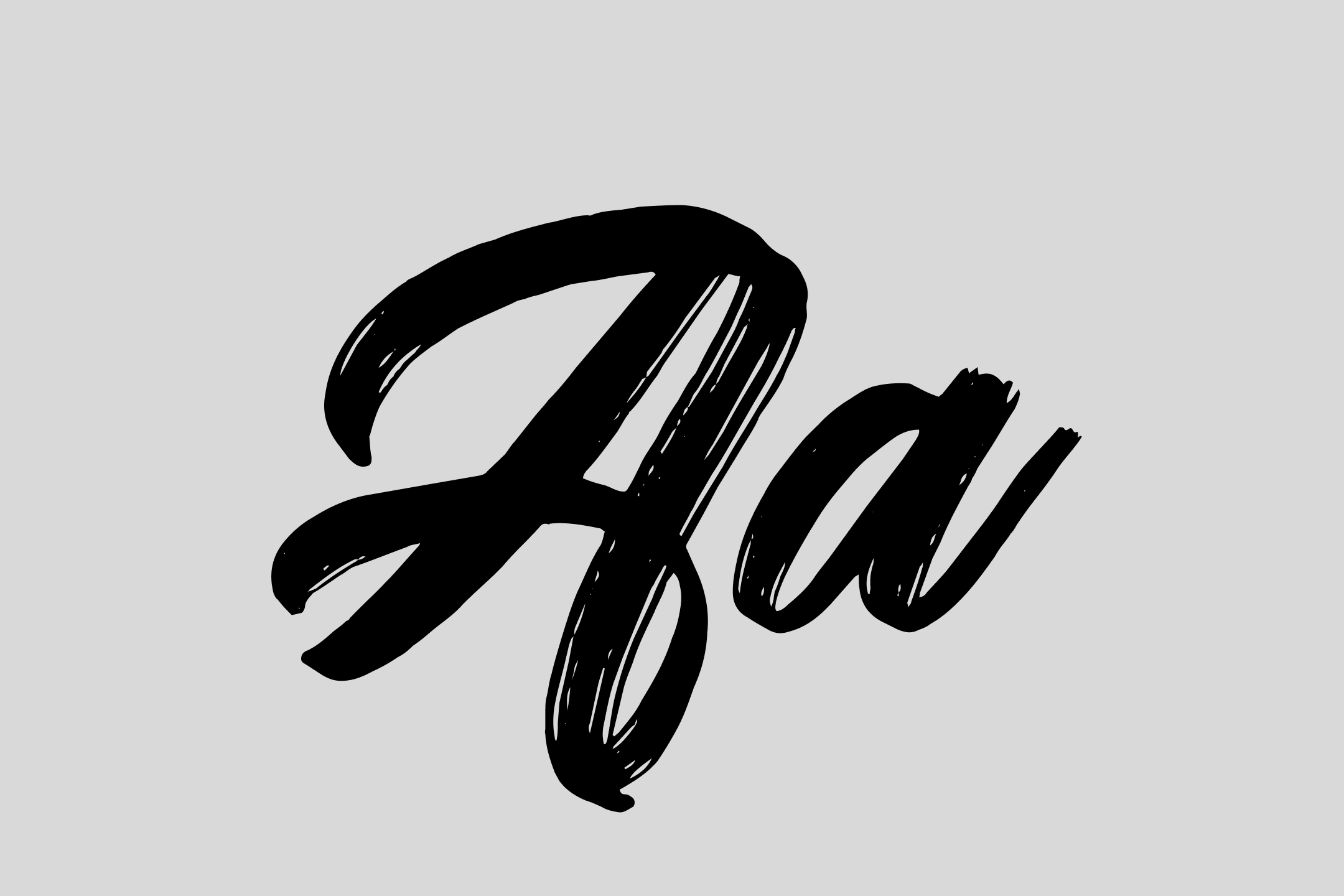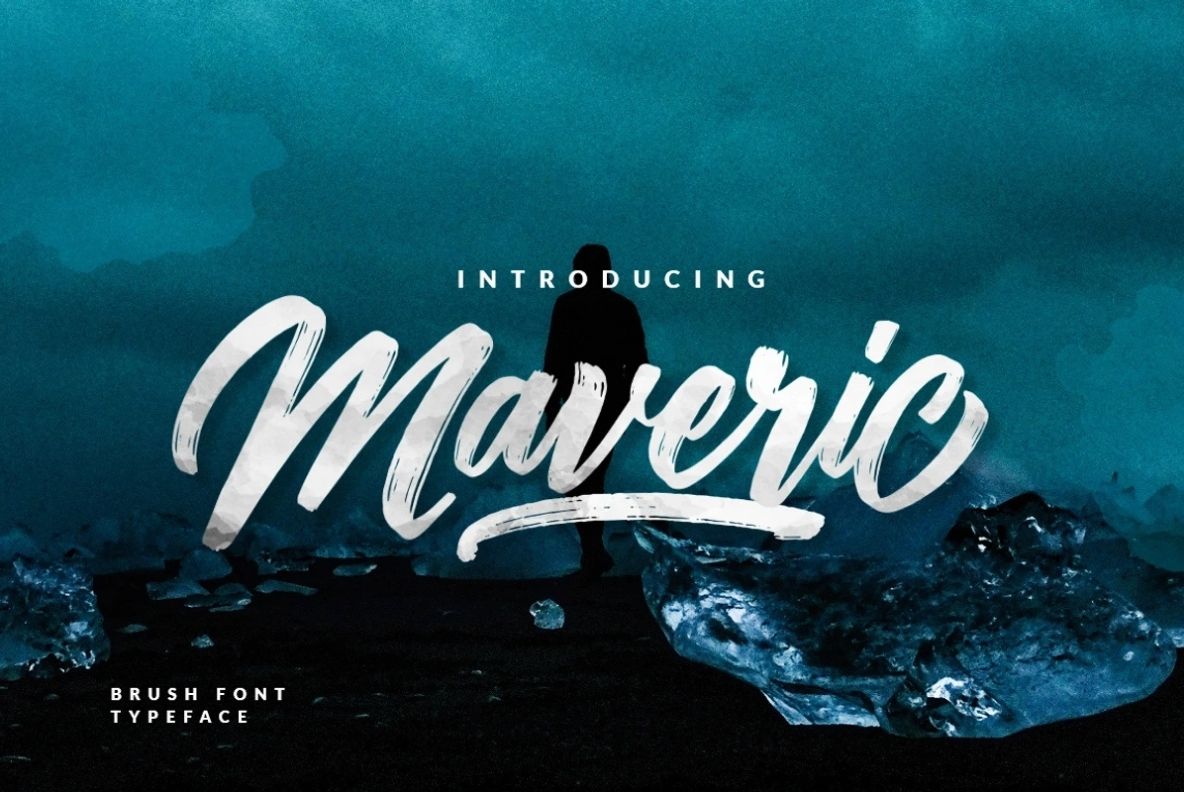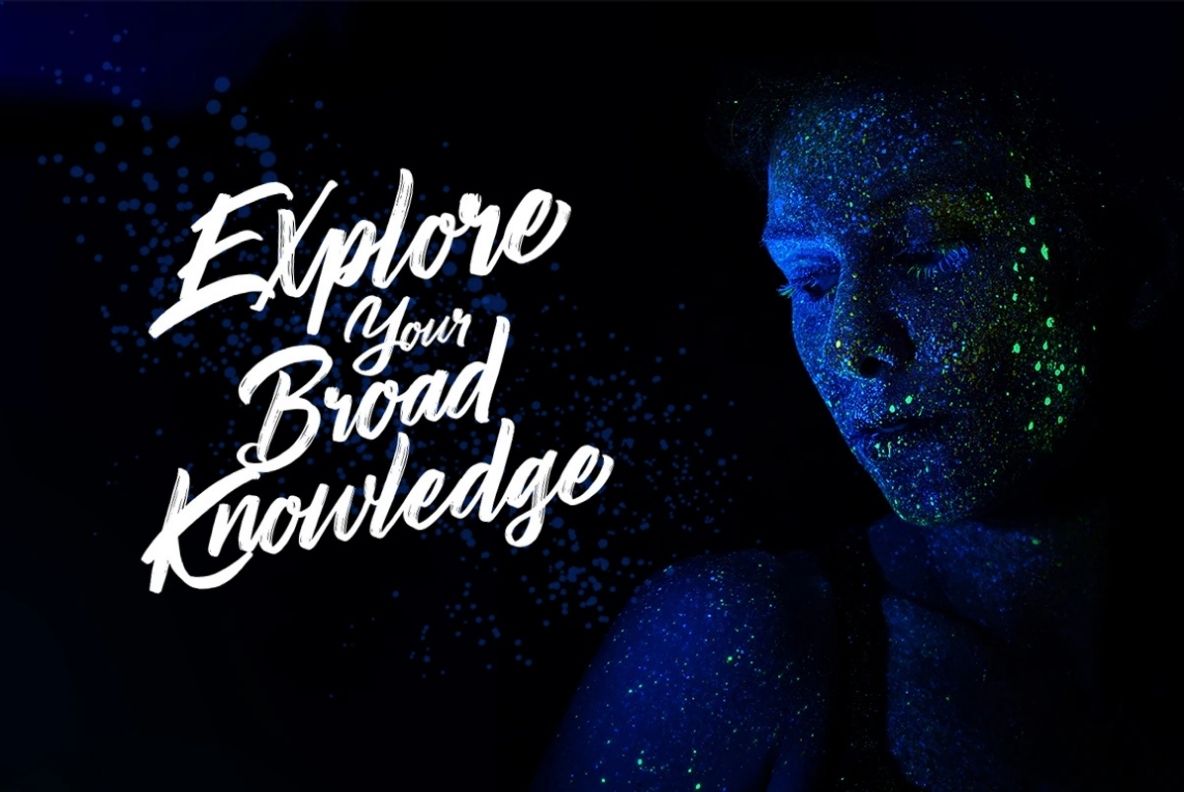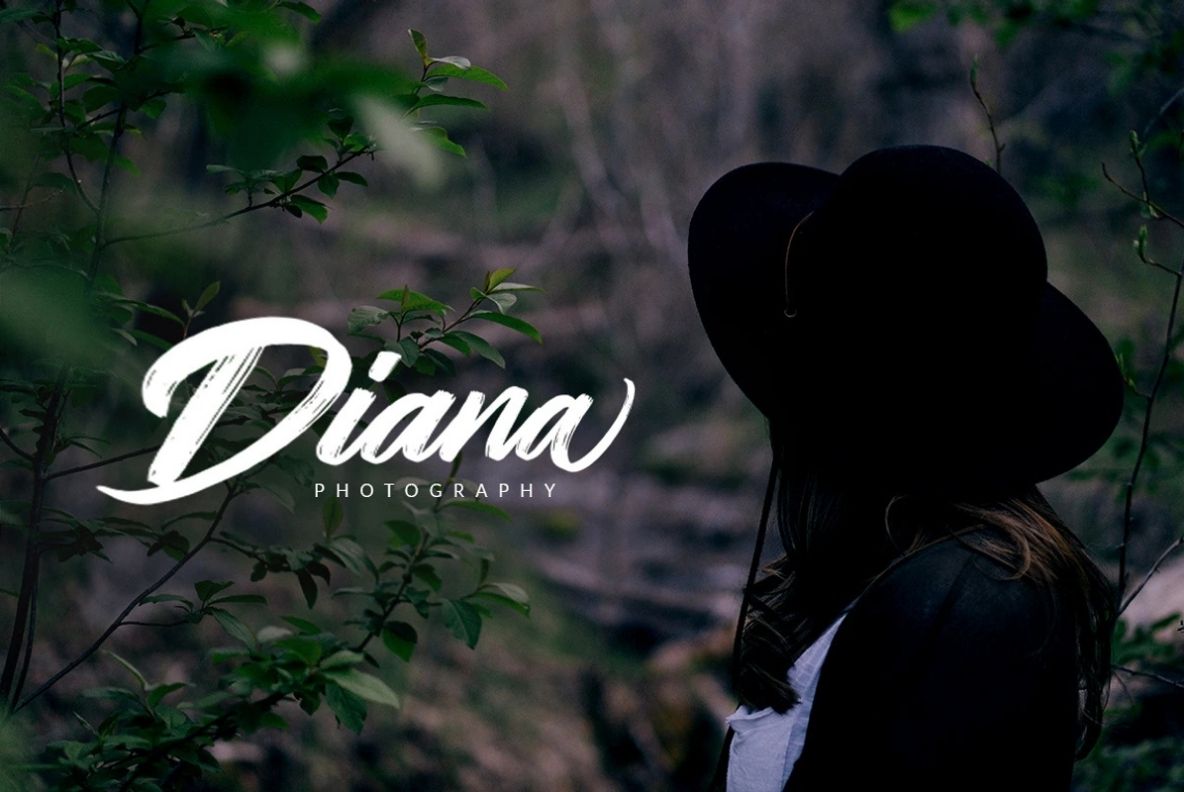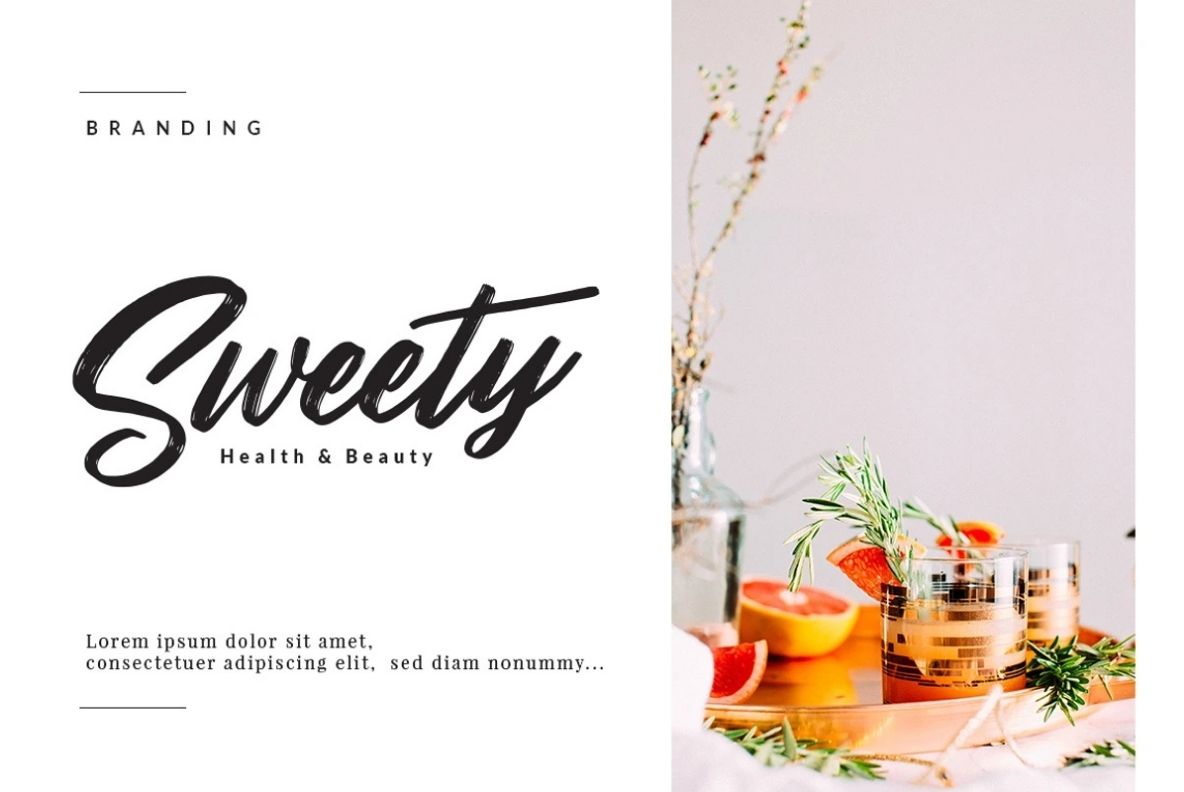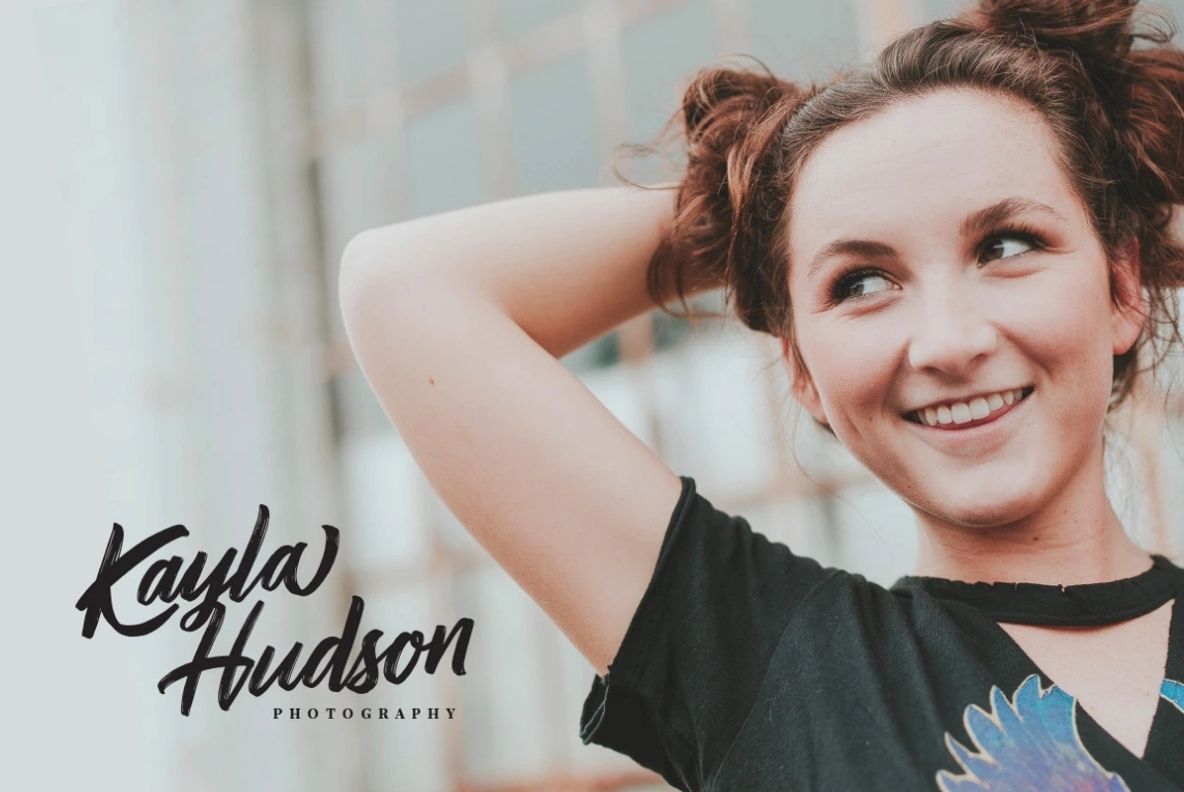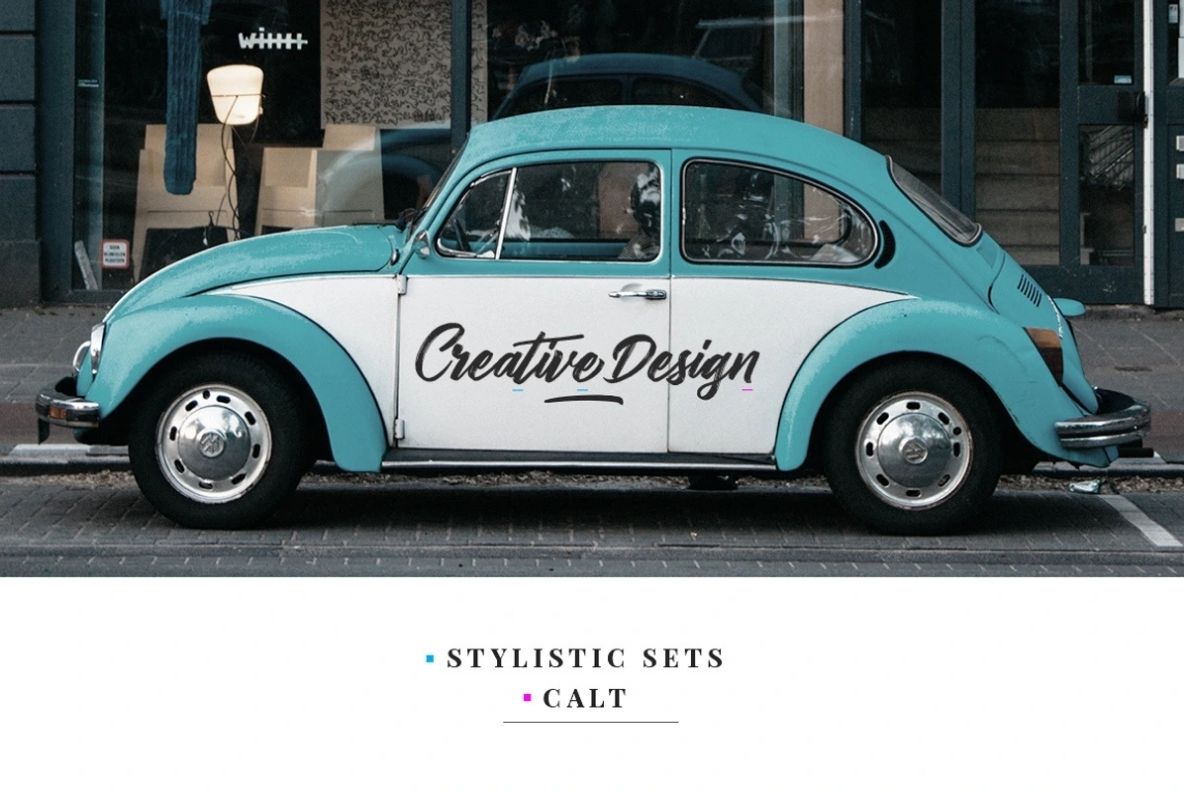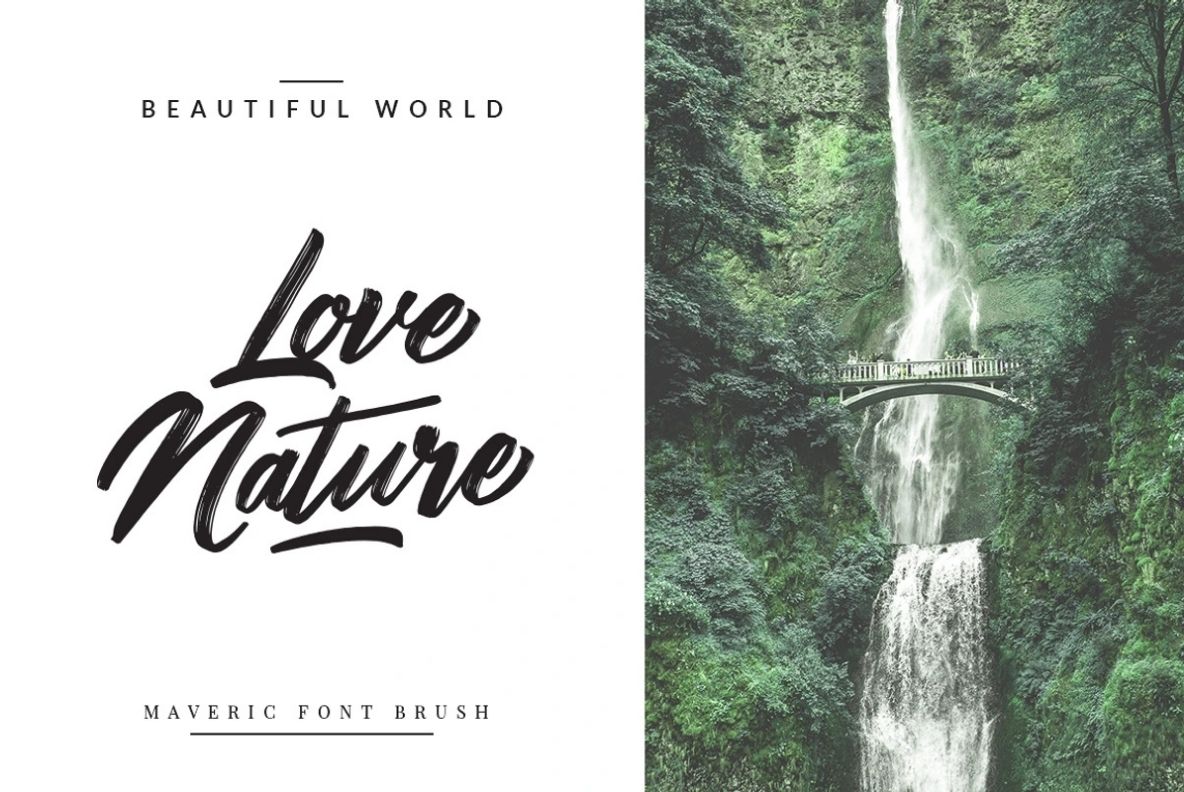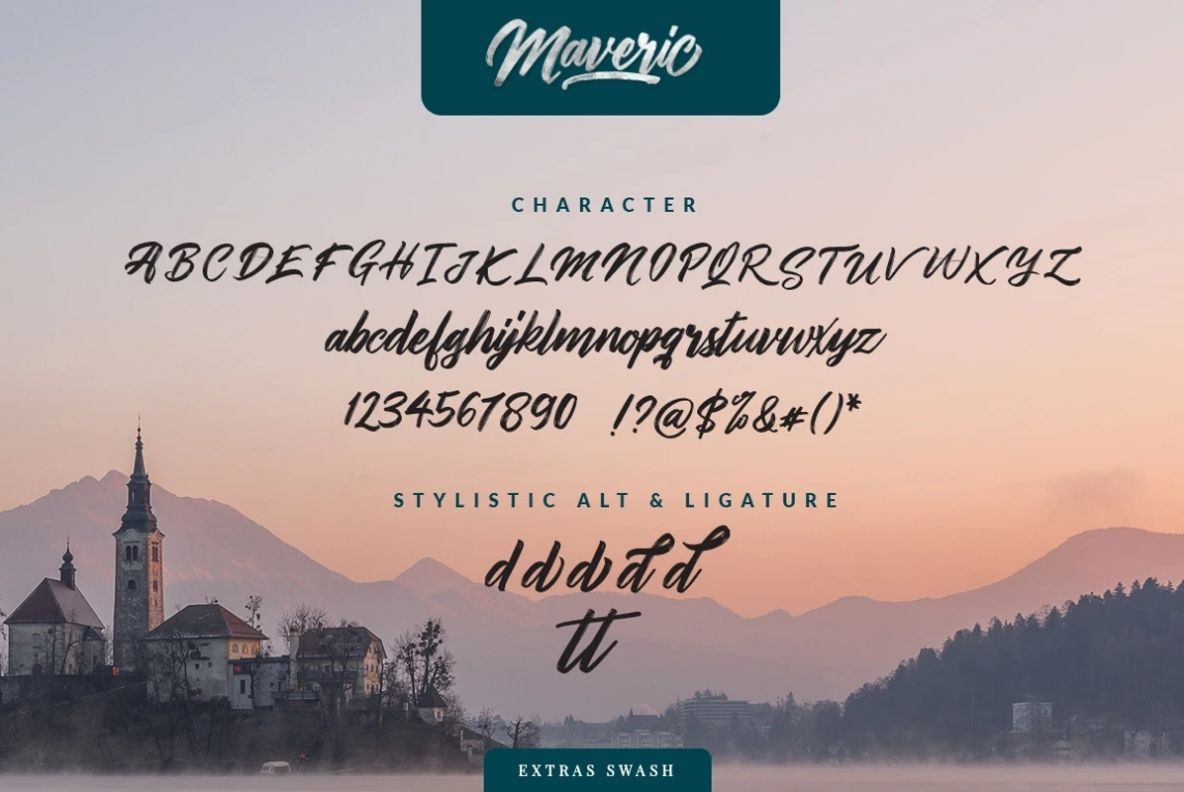
Maveric
Ideal for logos, handwritten quotes, product packaging, header, poster, merchandise, social media & greeting cards.
Elegant Design for Meaningful Brands
Maveric – Script Font
Maveric is a hand brushed typeface, with authentic dry brush imperfections, and a very bouncy baseline It has a perfectly paired complimentary marker font, and a super handy set of bonus Swash. Ideal for logos, handwritten quotes, product packaging, header, poster, merchandise, social media & greeting cards.
Maveric Features :
• Basic Latin A-Z and a-z, Numbers, Symbols, PUA Encode, Multilanguage Support, Stylistic Alt, Ligatures.